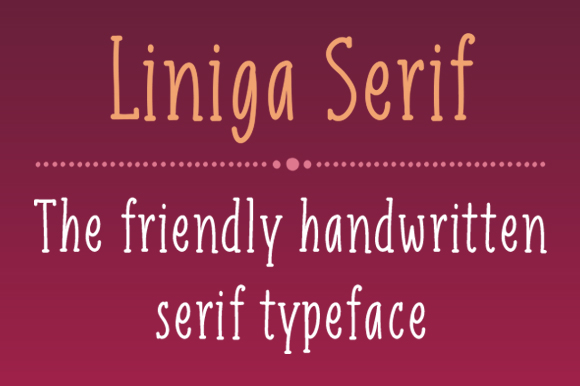
Behold Liniga Serif, a stunning creation by Graphite, a font that exudes elegance and warmth. This tall and amiable handwritten typeface, a serif sibling to the beloved Liniga font, possesses a simplistic structure and low contrast, inviting you to embrace its beauty.
Crafted with meticulous care, Liniga Serif captures the essence of handwritten charm, yet maintains a modern, refined aesthetic. Its tall stature elongates your text, lending a touch of sophistication and height to your creative projects. And with its friendly, approachable nature, Liniga Serif fosters an intimate connection with your audience, evoking a sense of genuine connection.
Let Liniga Serif be your creative companion, transforming ordinary text into captivating works of art. Whether you're crafting logos that demand attention, designing invitations that exude heartfelt charm, or creating marketing materials that radiate warmth, Liniga Serif is the ultimate choice for adding a personal touch.
Immerse yourself in the creative freedom that Liniga Serif offers. Its low contrast design allows for seamless blending, making it ideal for overlaying on images and backgrounds. Explore endless possibilities, from vintage-inspired designs to contemporary layouts, and watch as your creations come alive with a fresh, dynamic energy.
At Graphite, we are passionate about creating fonts that inspire and empower designers. With Liniga Serif, we present a font that not only elevates your designs but also reflects the unique essence of your brand. Its timeless elegance and captivating charm will undoubtedly leave a lasting impression on your audience.